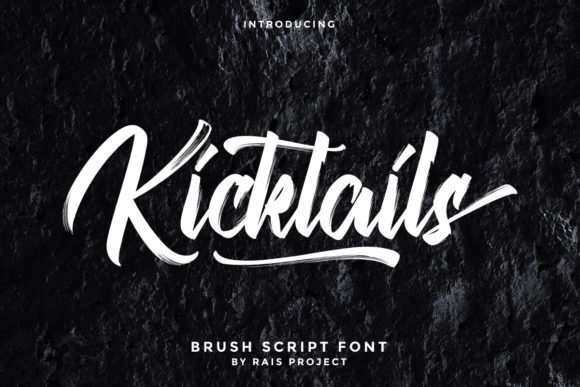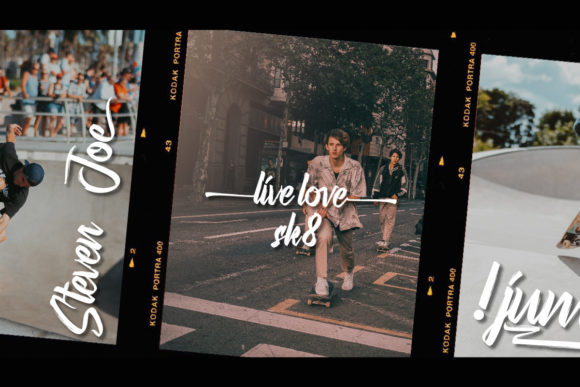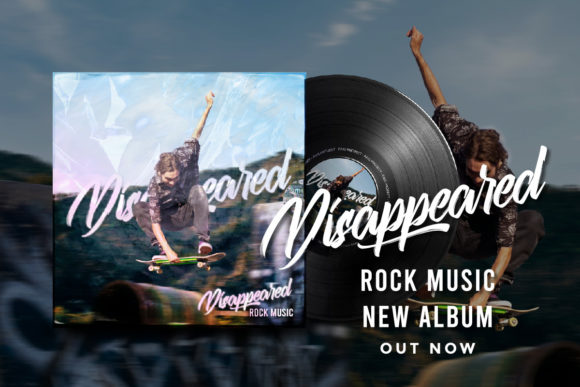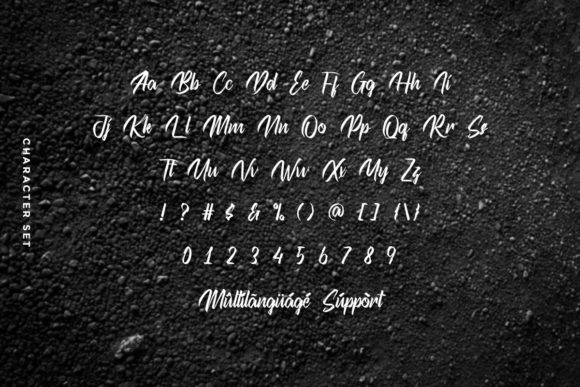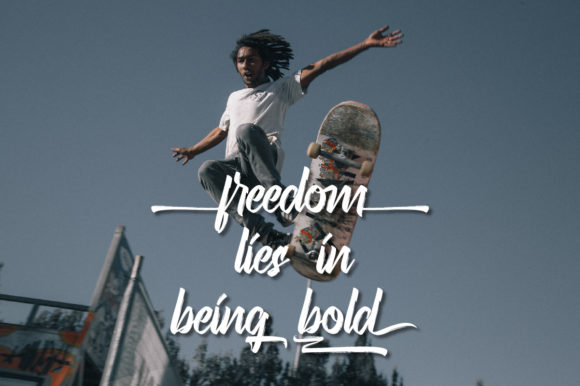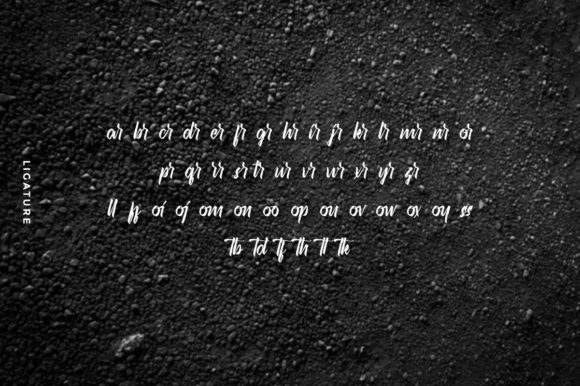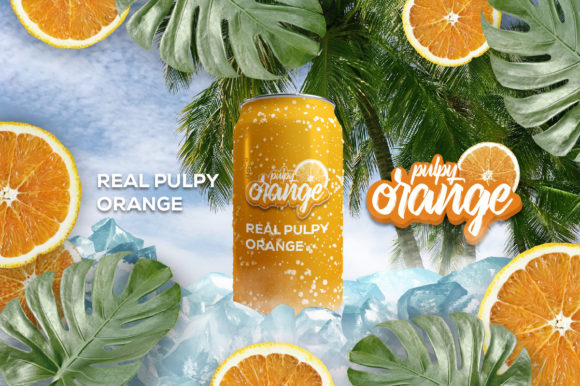
The Perfect Font for Your Next Design Project
Remember that moment when you finally land on the perfect font for your design project? It’s like a spark of creativity ignites within you, and you know you’re onto something special. For designers, finding the right font can be a game-changer. That’s where Kicktails Font comes in – a unique and intriguing handwritten font that’s sure to capture your attention.
Kicktails Font is designed to be incredibly versatile, making it a valuable addition to any designer’s toolkit. Its stylish look and feel make it perfect for a wide range of designs, from elegant invitations to bold advertisements. With Kicktails Font, you’ll be able to create spectacular designs that truly stand out from the crowd.
Kicktails Font Key Features
- Font Family: Kicktails Font is a unique, hand-drawn font with a playful and casual feel.
- Size: Kicktails Font is available in 4 different font sizes: Regular, Italic, Bold, and Bold Italic.
- Character Set: The font includes a wide range of characters, including uppercase and lowercase letters, numbers, punctuation, and special characters.
- Unique Characteristics: Kicktails Font features a distinctive, hand-drawn style with varying line widths and irregularities, giving it a unique and personalized feel.
Kicktails Font Review
Overall, Kicktails Font is a decent addition to any designer’s toolkit, but it’s not without its quirks.
- ✨ The font’s playful, handwritten feel is perfect for branding and marketing materials that need a personal touch.
- ✨ Kicktails Font’s versatility makes it suitable for a wide range of projects, from logos to social media graphics.
- ✨ The font’s bold lines and expressive curves make it easy to read, even at small sizes.
- ⚠️ The font’s inconsistencies in letter spacing and word flow can make it difficult to read in certain contexts.
- ⚠️ Some characters, such as the ‘i’ and ‘l’, can be easily mistaken for each other due to their similar shapes.
- ⚠️ The font’s condensed forms can be difficult to read at small sizes, especially for those with visual impairments.
While Kicktails Font has its limitations, it’s still a solid choice for designers who want a unique, handcrafted feel for their projects. With a bit of caution and attention to detail, it can be a valuable addition to any design toolkit.
Kicktails font is ideal for creative and casual projects. Use it for social media graphics, flyers, posters, and other marketing materials. You can also use it for personal projects, such as invitations, menus, and other print materials.